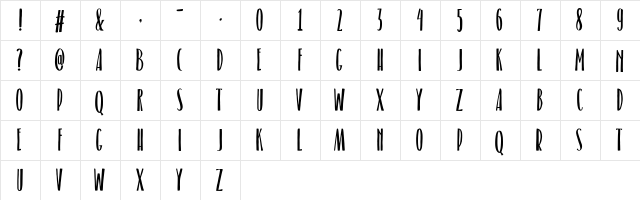
Belacu Regular
| Foundry | Adien Gunarta |
| Designer | Adien Gunarta |
Design Context for Belacu Typeface
Belacu offers clean, dependable letterforms without strong stylistic allegiance, making it a practical choice for designers who need flexibility.
Pro Tip: Pair Belacu with a font of contrasting weight or personality to build a more expressive typographic hierarchy.